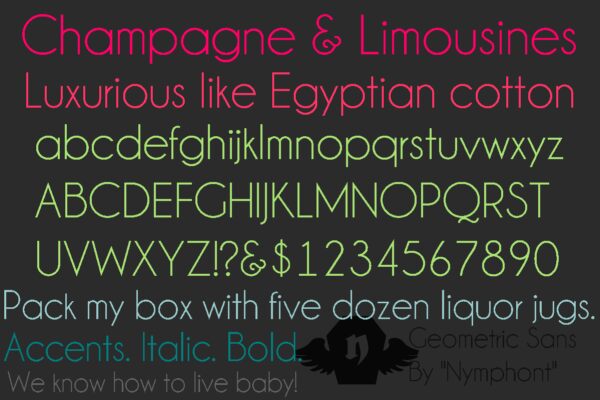
Champagne & Limousines Bold
*Made correction to Greek epsilon in Bold and Bold Italic weights.
A sweet little geometric sans-serif font that doesn't adhere to old rules.